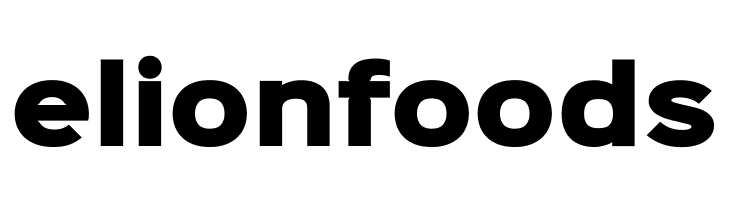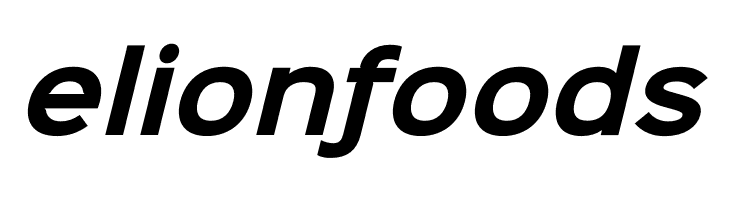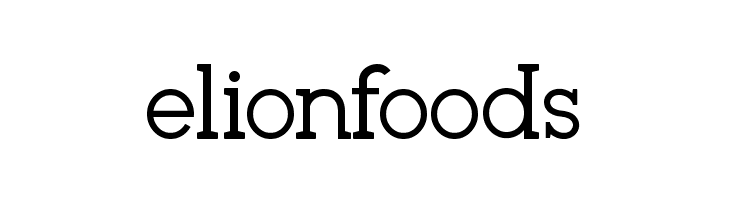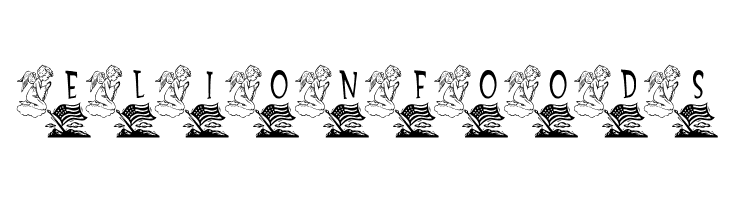
A bold, modern sans-serif font with thick, uniform strokes.
A sleek, modern sans-serif font with a light, italic style and normal spacing.
A modern, bold, and italic sans-serif font with a sleek and dynamic style.
A clean, modern sans-serif font with consistent stroke weight and balanced spacing.
A bold, geometric sans-serif font with a modern and clean aesthetic.
A sleek, modern sans-serif font with a light, italic style and smooth curves.
A modern, light sans-serif font with clean lines and balanced spacing.
A modern, clean sans-serif font with uniform strokes and rounded edges.
A clean, professional serif font with balanced proportions and clear readability.
A decorative serif font with angel illustrations accompanying each character.